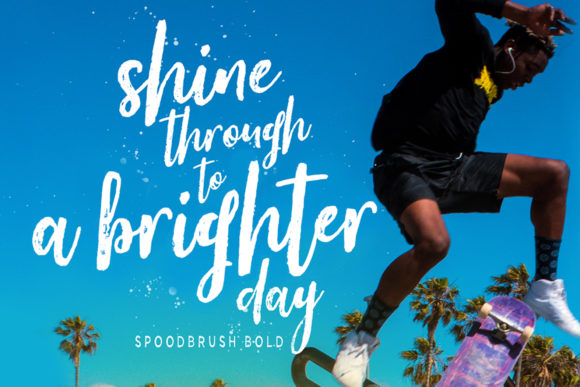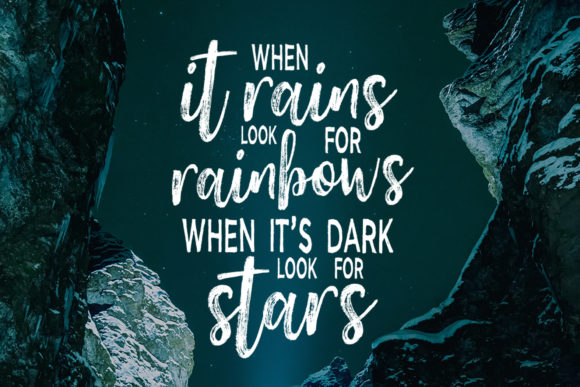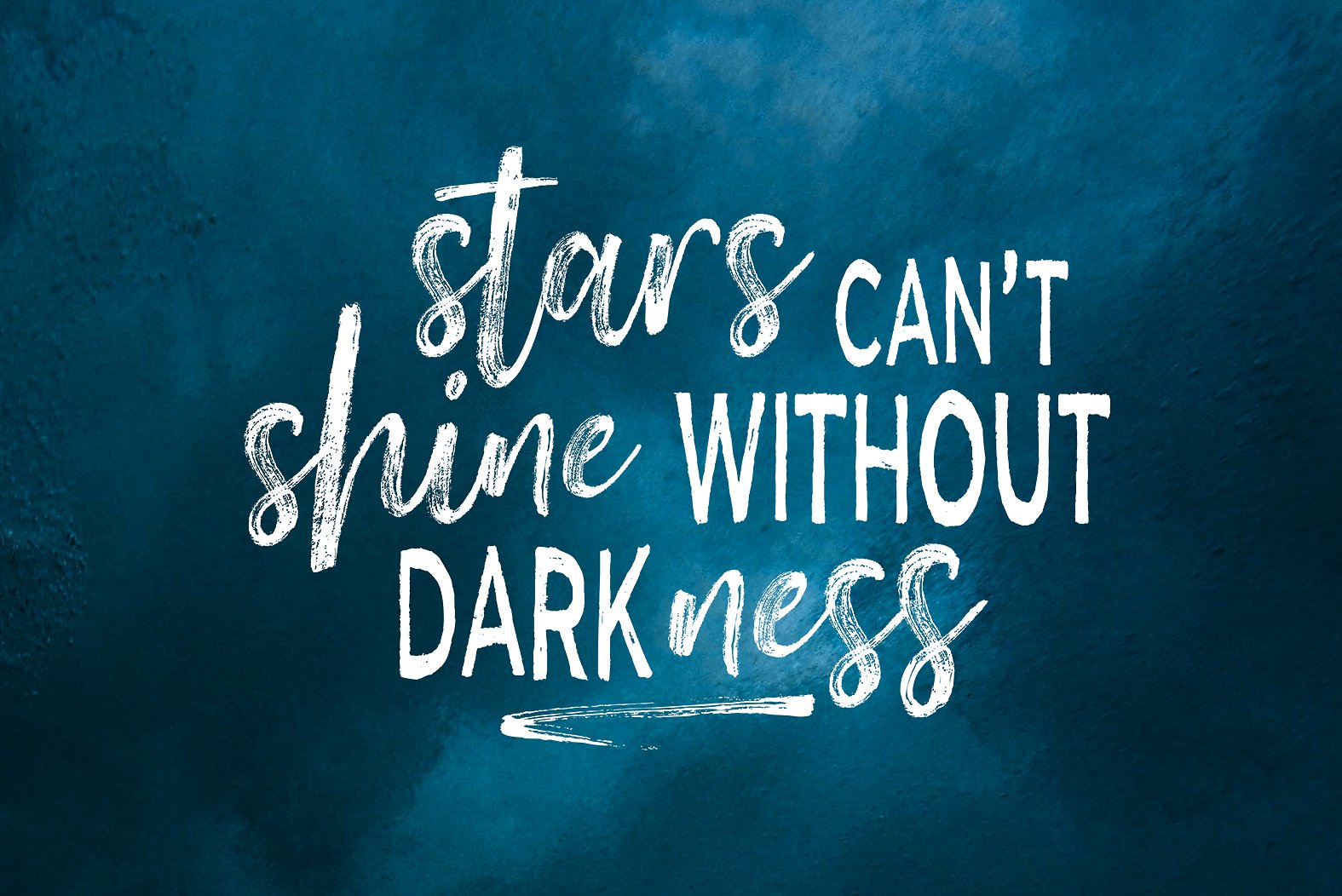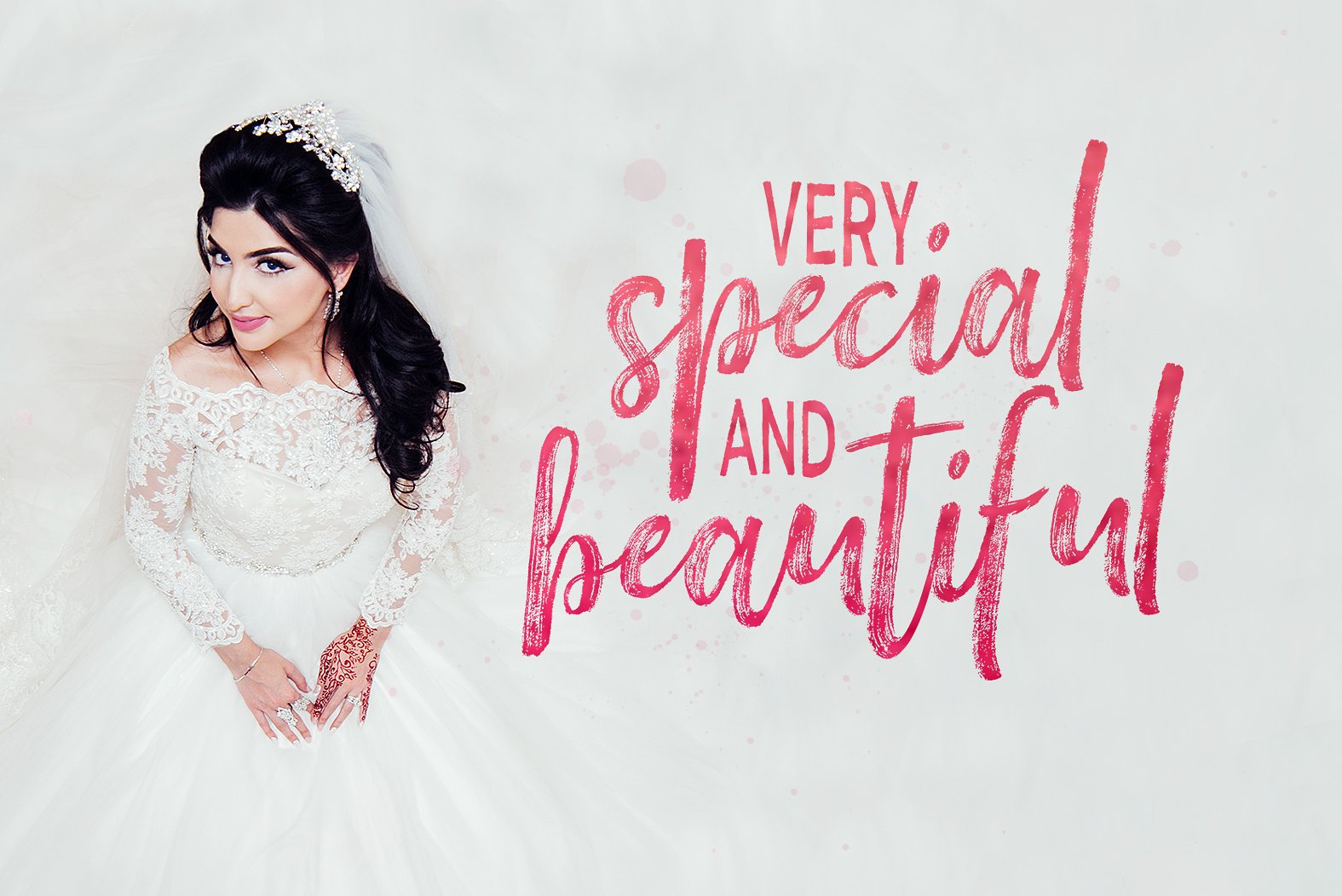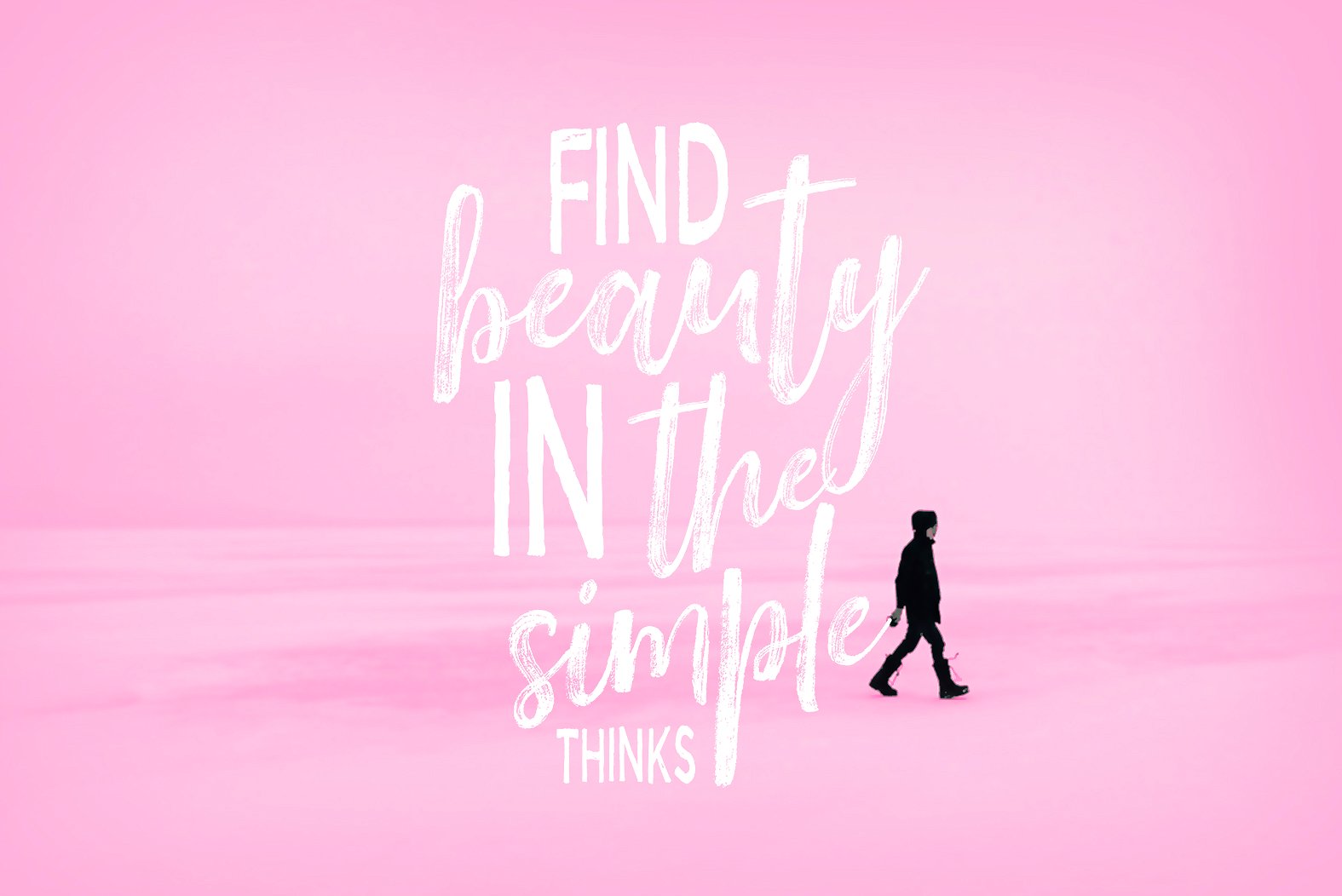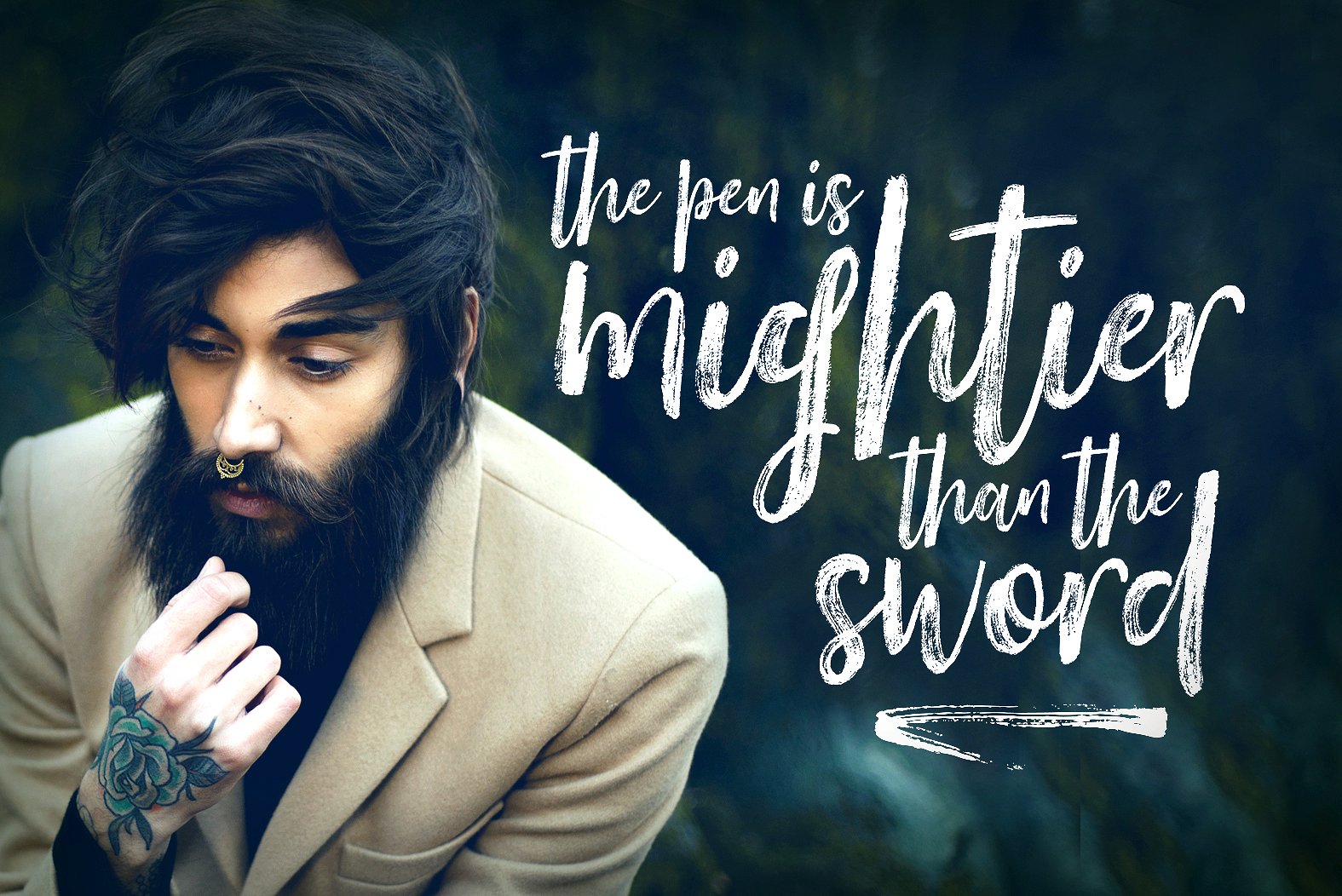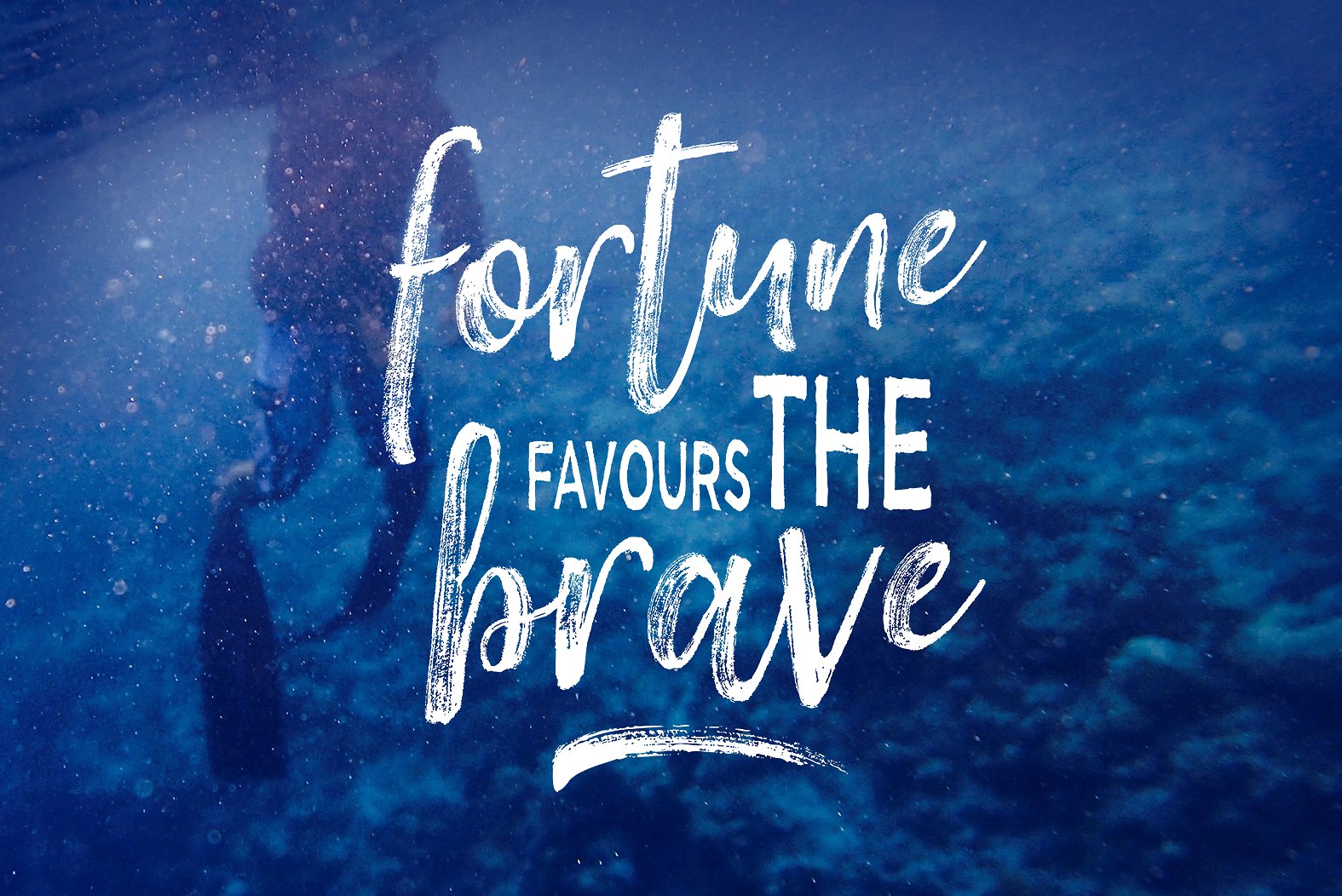
Spoodbrush – Font Duo
About Spoodbrush – Font Duo Font
Smartly crafted, Spoodbrush Font Duo were created to perfectly combine with one another to create stunning graphics with an extremely personal touch. This brush stroke script is exceptional, and allows one to create a large number of designs due to its versatility and intent.